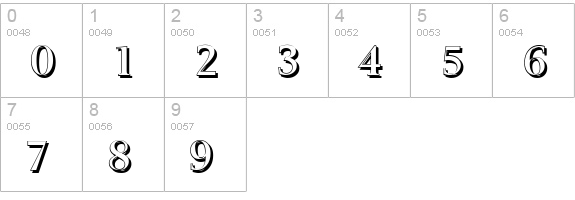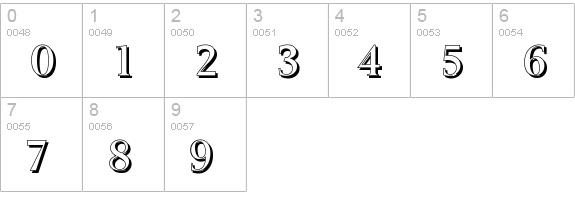
BelfastShadow-Medium-Regular Font Details
BelfastShadow-Medium-Regular is a balanced, medium-weight variant in the BelfastShadow typeface family \xE2\x80\x94 well suited to sub-headlines, navigation, and balanced editorial work.
BelfastShadow-Medium-Regular font is a beautifully crafted typeface that exudes elegance and sophistication. With its striking shadow effect and medium weight, this font is perfect for adding a touch of modernity to any design project. The clean lines and stylish curves of BelfastShadow-Medium-Regular font make it versatile and suitable for a wide range of applications, from branding to editorial design. Best of all, BelfastShadow-Medium-Regular font is available for free download at FontsMarket.com. This means you can easily access and use this stunning font in your projects without any cost. Don't miss out on the opportunity to enhance your designs with the timeless appeal of BelfastShadow-Medium-Regular font - download it today and elevate your creative work to new heights!